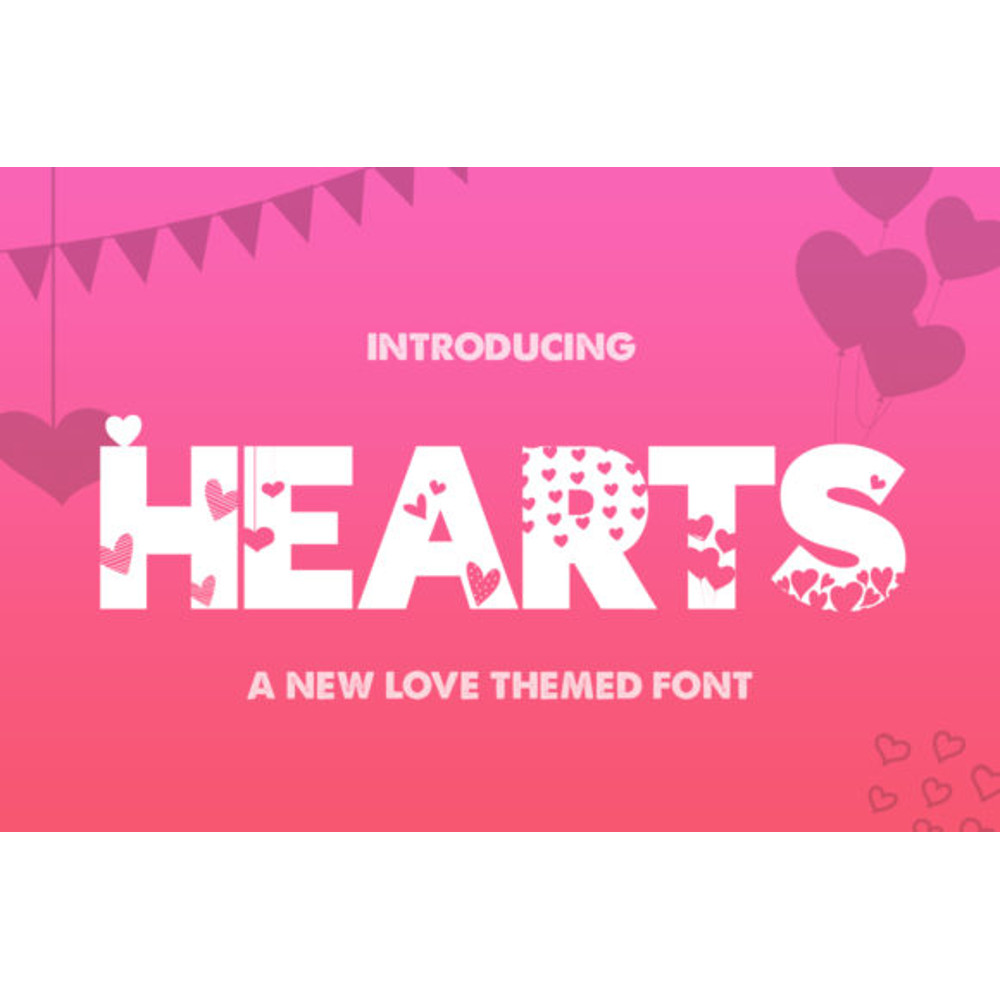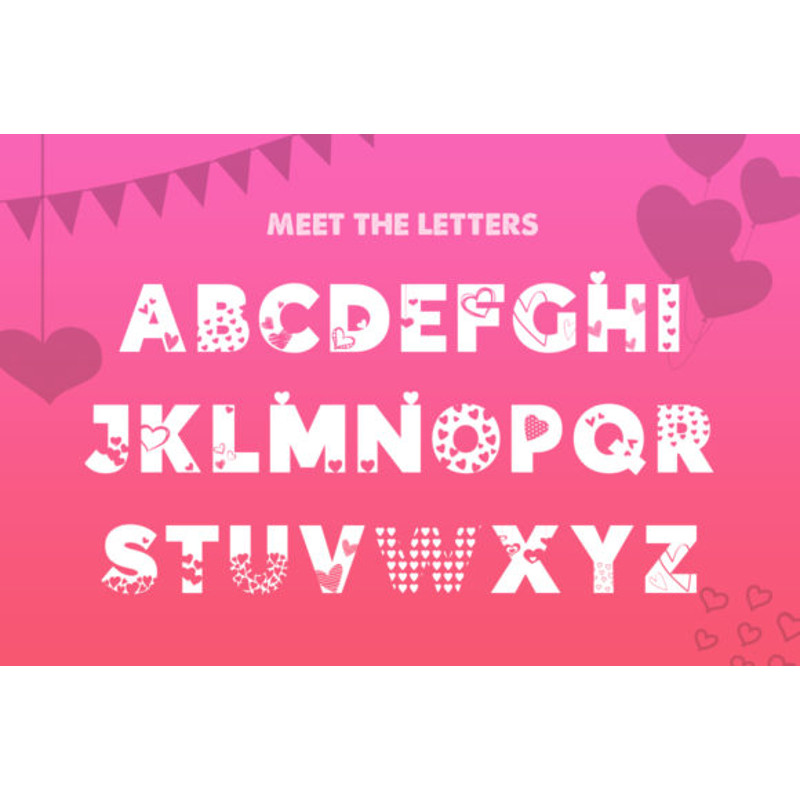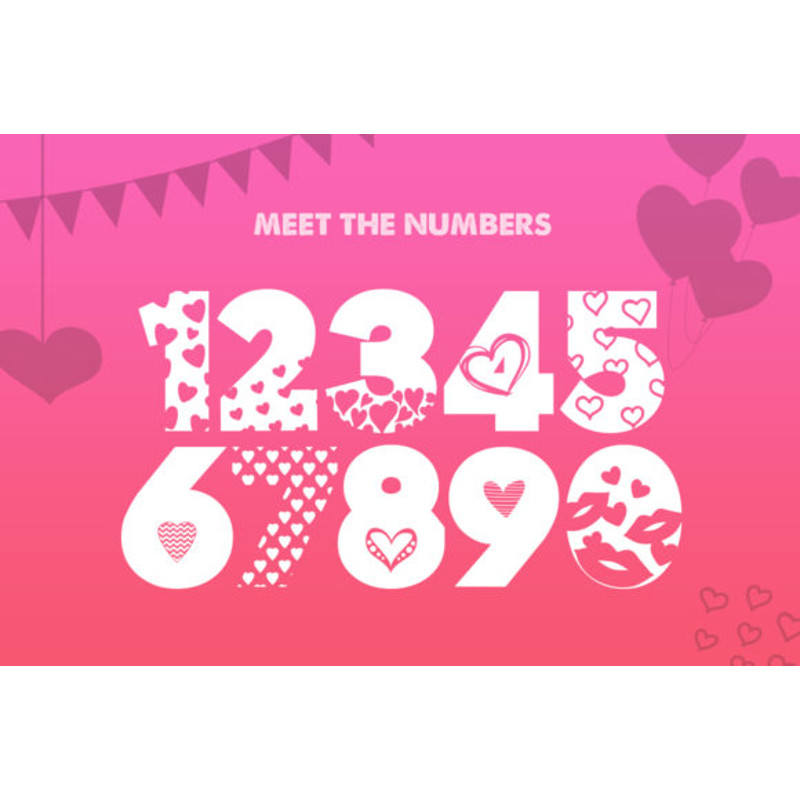
Hearts Font
Hearts is a gorgeous sans serif-style display font featuring stunning hearts. It will effortlessly add a romantic spark to any design project!